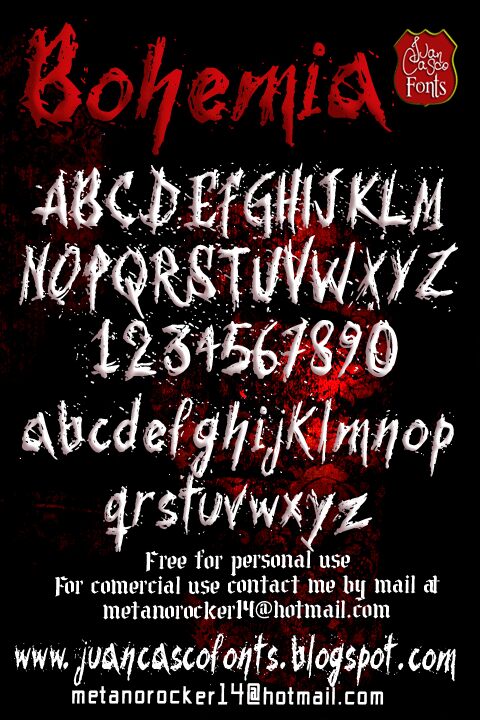
Bohemia by Juan Casco of Juan Casco Fonts is a free distressed script font with a raw, cut-and-splattered finish. Its uneven strokes shift from dense black marks to thin scratches, and stray flecks make the lettering look hurried and abrasive.
Posters offer the strongest setting for this unruly texture, especially for punk concerts, horror events, and underground film promotions. It is aimed squarely at designers seeking a damaged, confrontational voice for music merchandise and youth-oriented entertainment.
Bohemia, version 1.00, is a Bruseg/trash font.
Grunge/Trash Font by Juan Casco